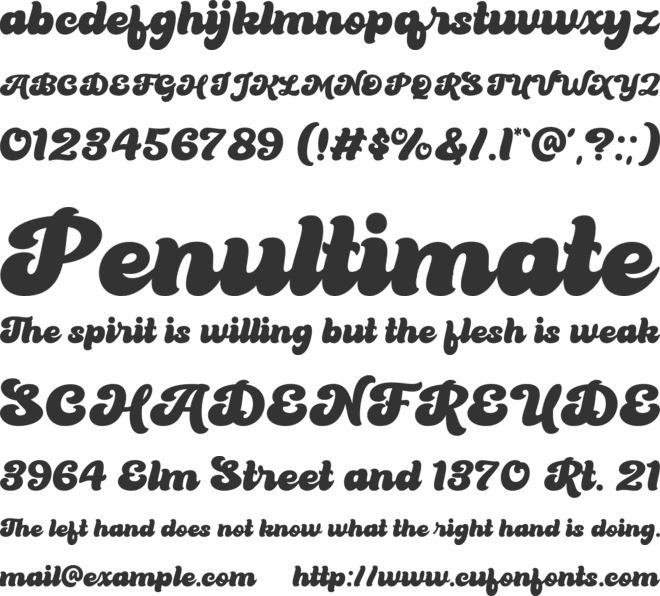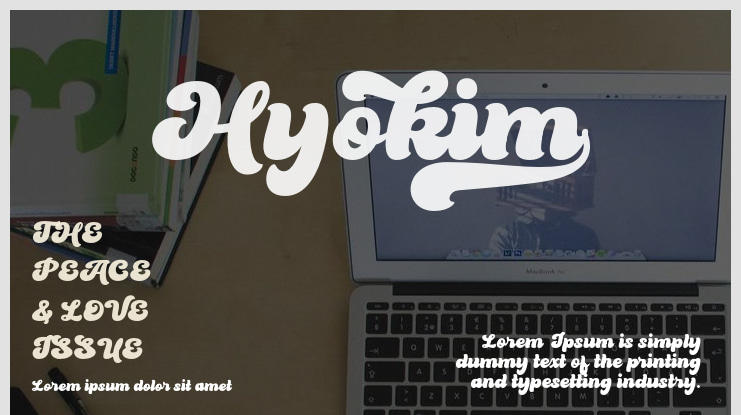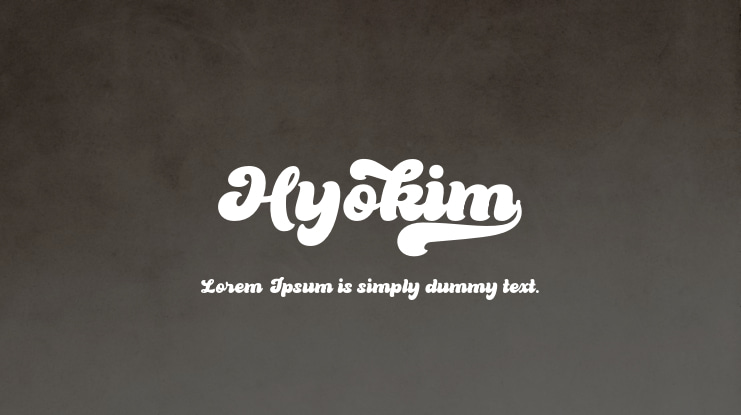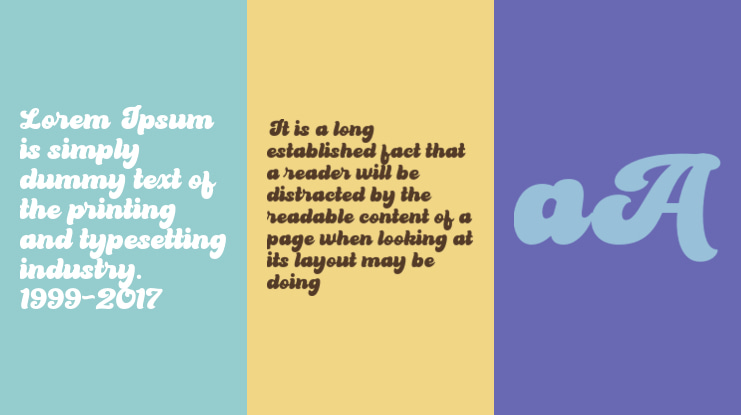
Hyokim Font
Hyokim is a fun, retro-style script display font that is ready to take your designs to the next level. Add it to your vintage-inspired posters, stickers, apparel, or social media posts and you will definitely impress your audience.
This font is PUA encoded, which means you can access all of the glyphs and swashes with ease!